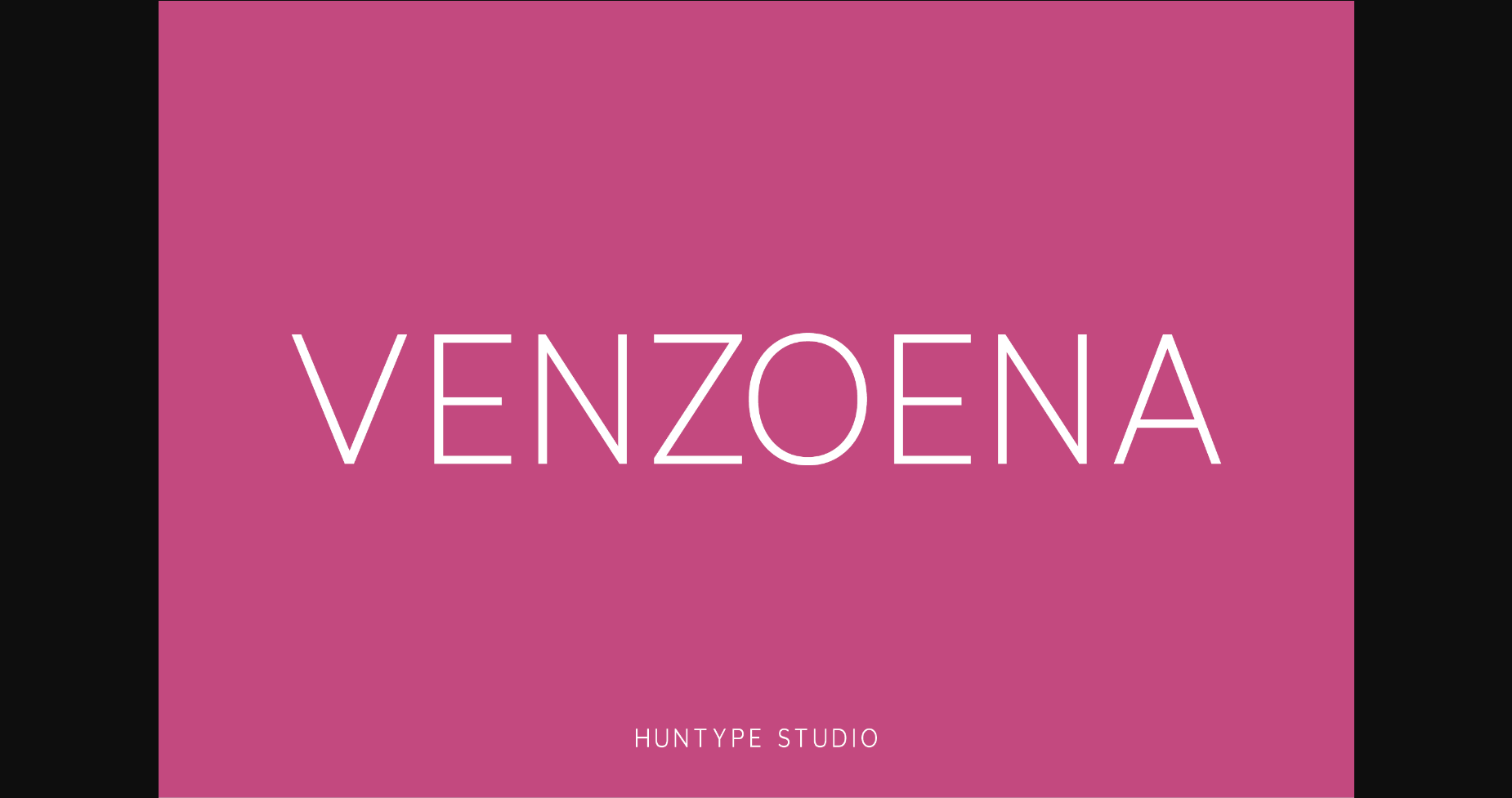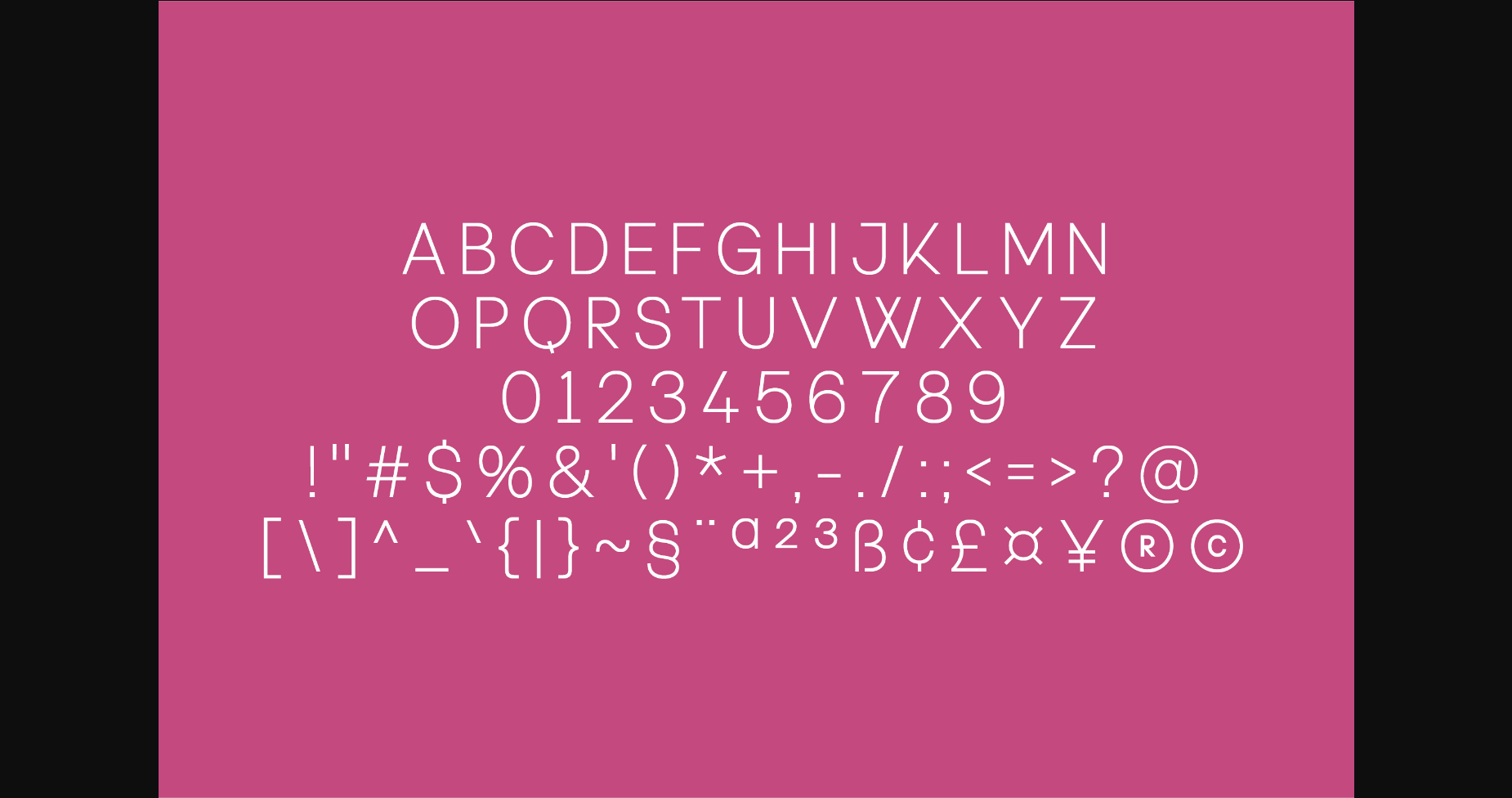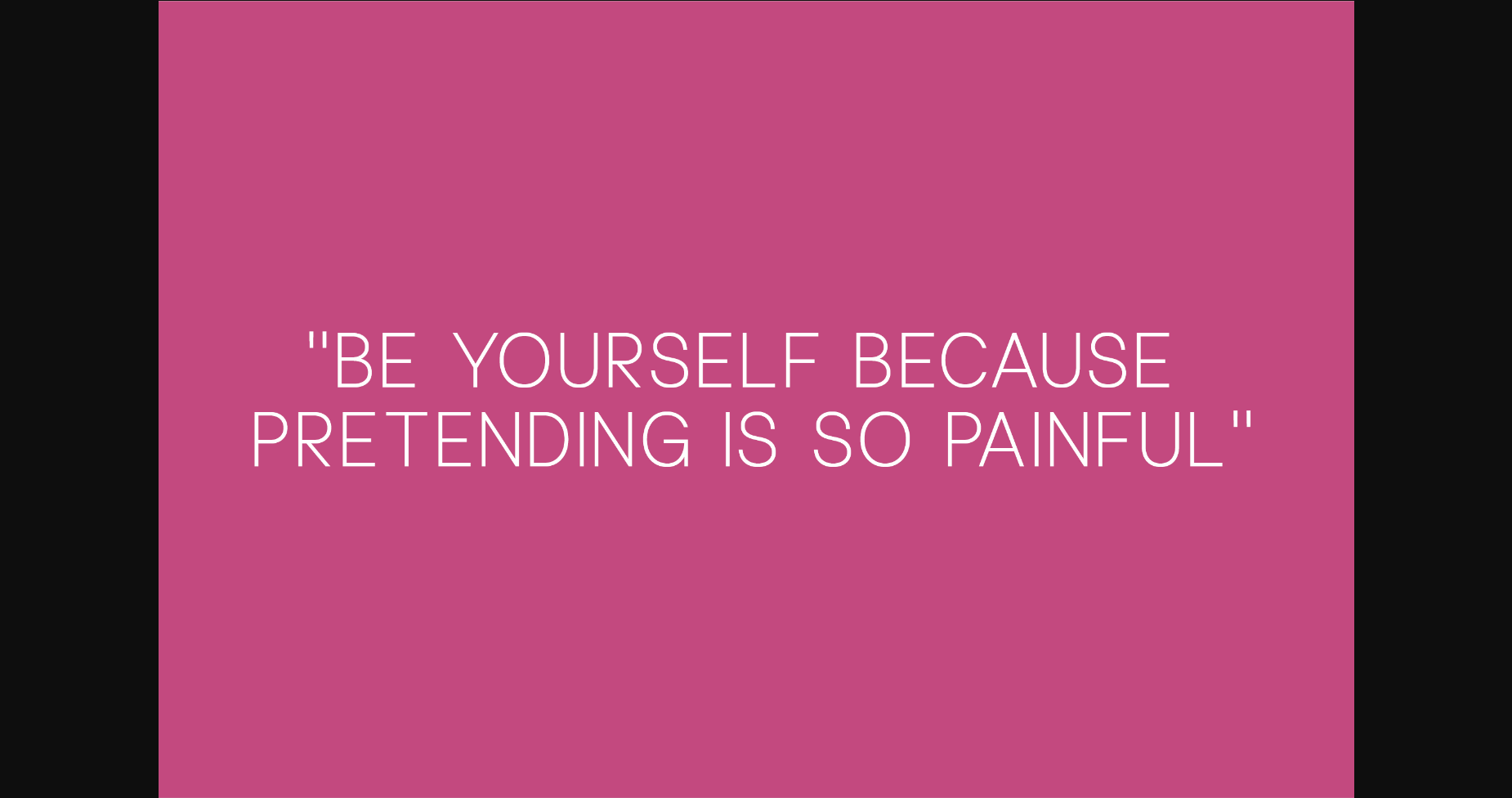
Venzoena is an all-caps sans serif. It is versatile and looks great in just about any context. With smooth and clean lines and just a touch of contrast, Venzoena works beautifully for logos, branding, and web headings.